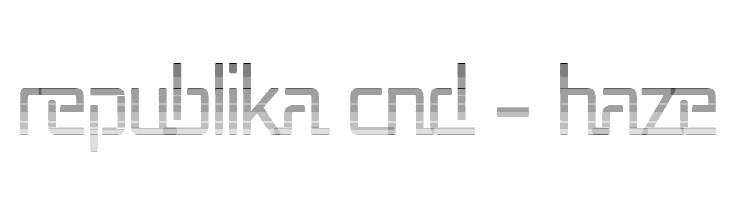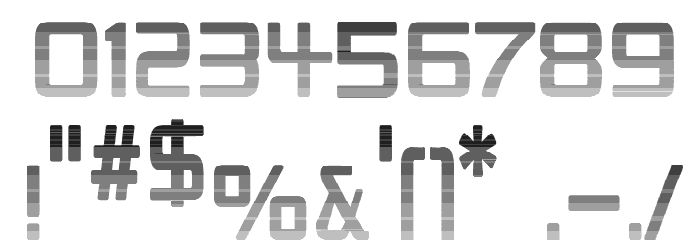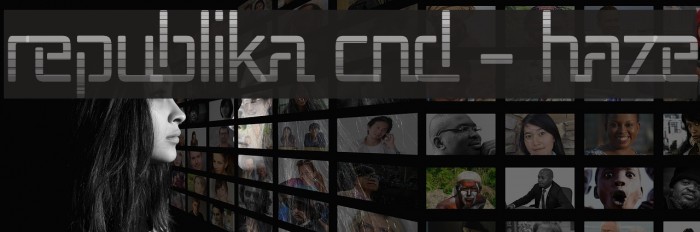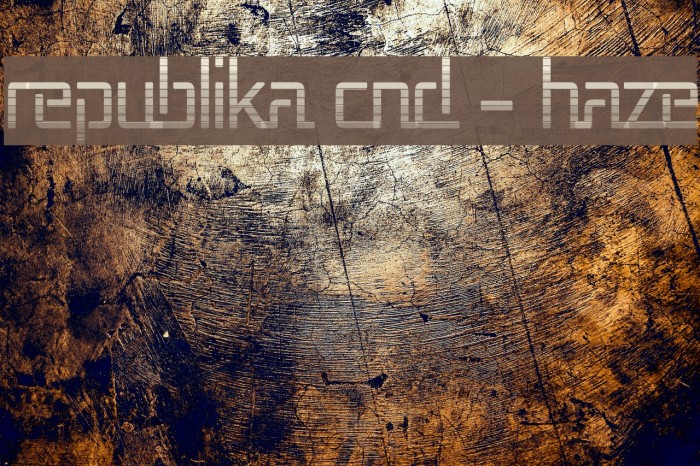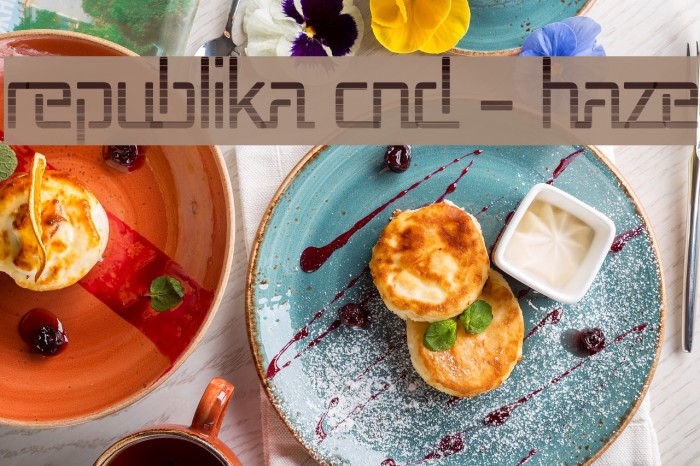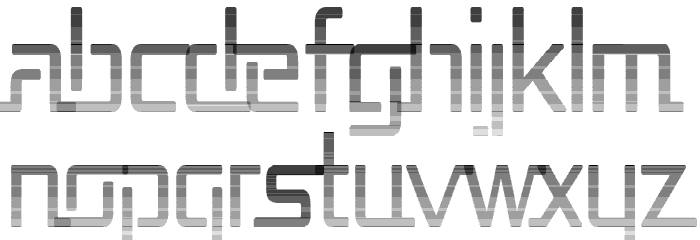
Republika Cnd - Haze Font
Republika Cnd - Haze Description
This font features a futuristic and geometric design with a distinct digital aesthetic. The characters are constructed with a consistent width and height, giving it a monospaced appearance. The use of horizontal lines and sharp angles creates a sense of precision and modernity. The gradient effect adds depth and a unique visual texture, making it stand out. The uppercase and lowercase letters maintain uniformity, while the numerals and special characters complement the overall style. This font is ideal for projects that require a modern, tech-inspired look.
A futuristic, geometric font with a digital aesthetic and gradient effect from Uncategorized fonts.
- Proposed Projects: Ideal for tech branding, digital interfaces, video game design, and futuristic posters.